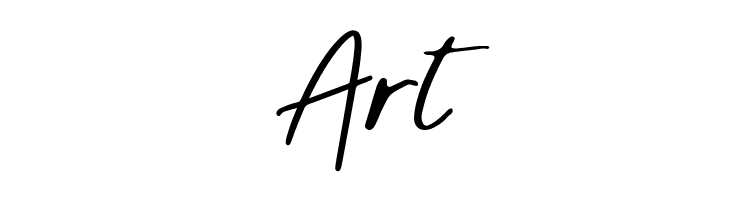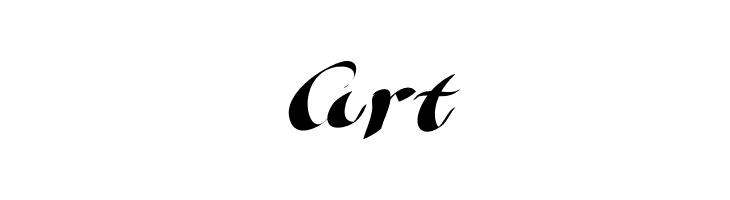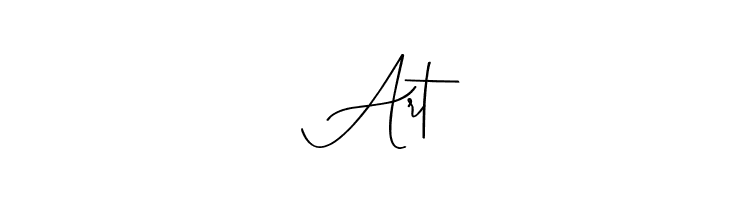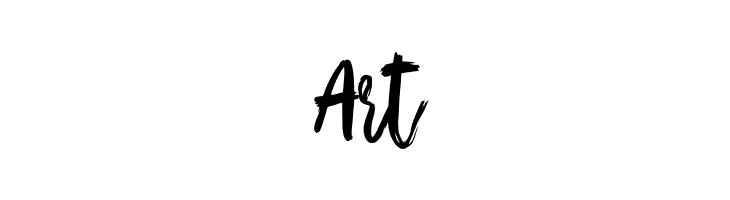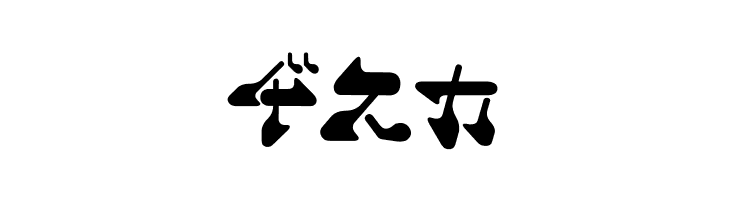
An elegant script font with ornate uppercase and fluid lowercase letters.
A dynamic and expressive handwritten font with fluid, cursive strokes.
A bold, abstract font with futuristic and geometric design elements.
A modern, elegant script font with flowing, cursive characters.
A dynamic, brush-like font with sharp, angular strokes and an artistic flair.
A bold, expressive script font with high contrast and elegant curves.
A playful, rounded handwritten font with a bold and friendly style.
A playful, rounded font with a hand-drawn, casual style.